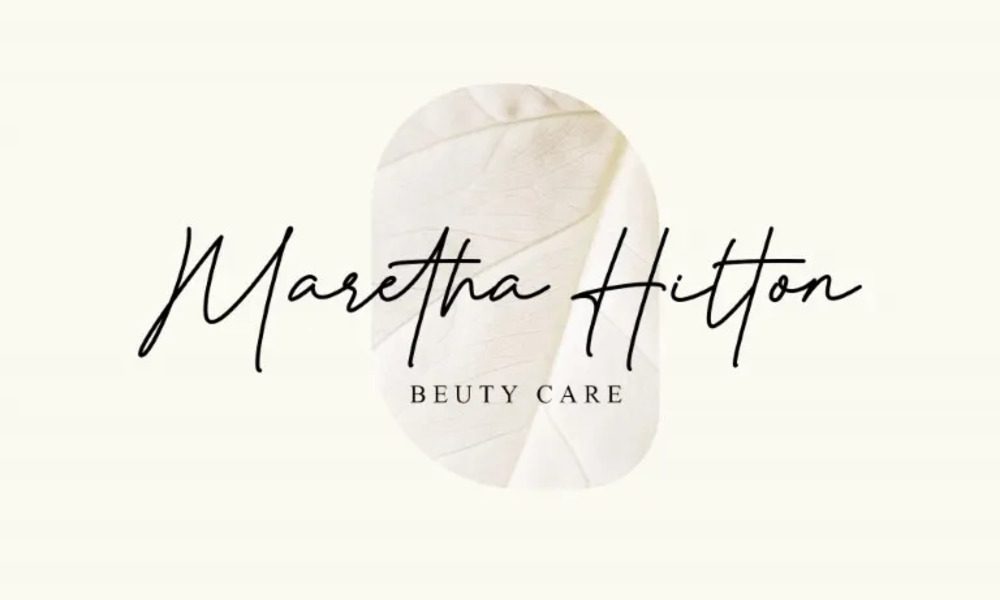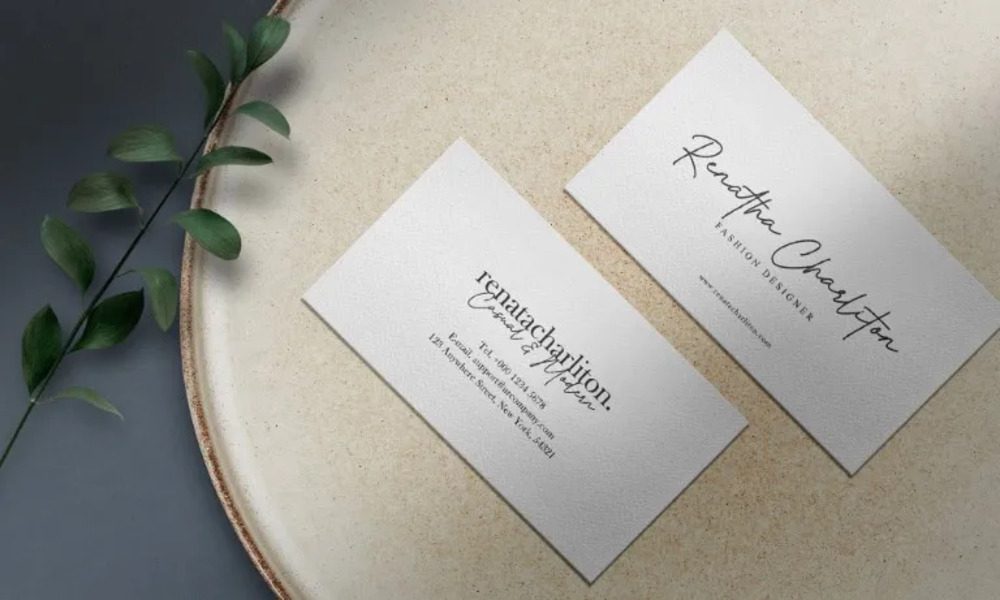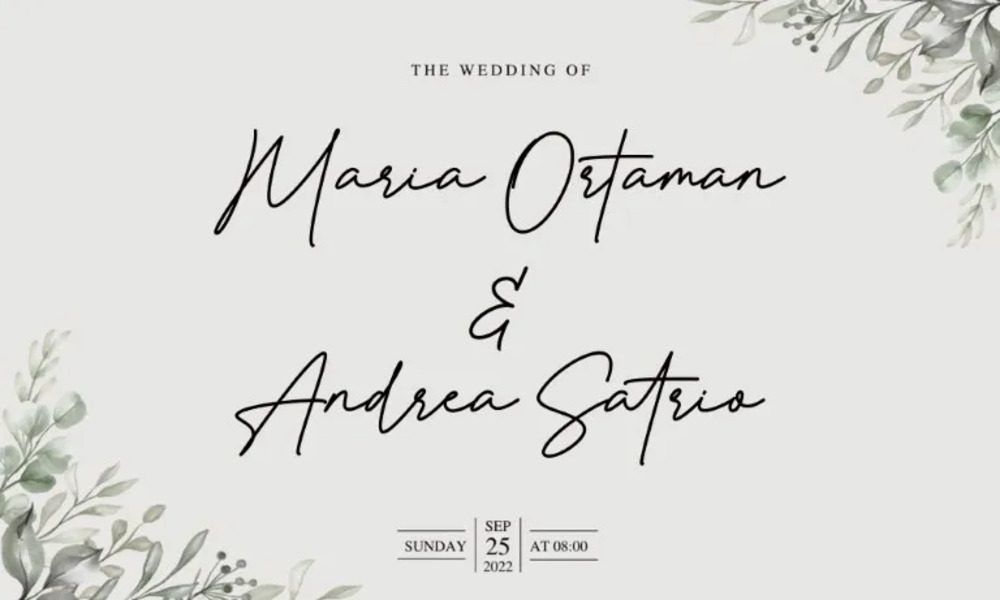
Montreal Signature Font
The Montreal Signature font is a sleek, modern script featuring fluid, stylish strokes that emulate authentic handwriting. Ideal for luxury branding, personal signatures, and creative projects, it exudes sophistication and charm. Its well-balanced characters ensure readability while maintaining a premium aesthetic, making it a versatile choice for elegant, high-impact designs.